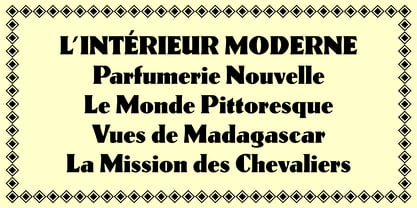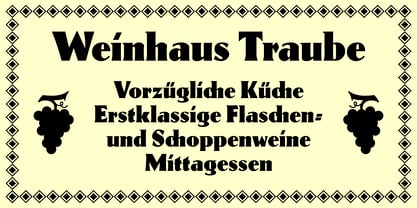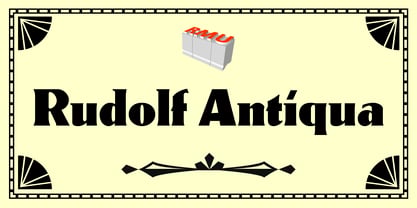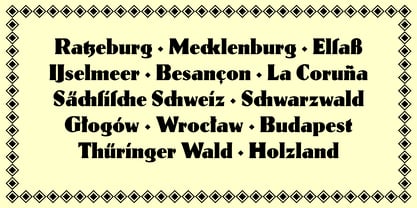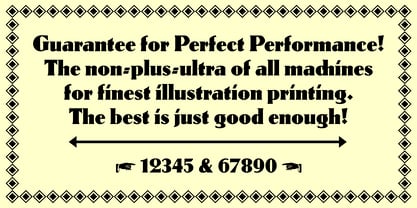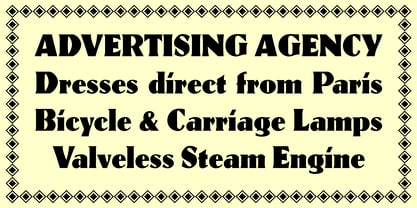
Rudolf Antiqua™
by RMU
The Rudolf Antiqua Font Family was designed by Rudolf Koch, Ralph M. Unger and published by RMU. Rudolf Antiqua contains 1 styles. More about this family
Rudolf Antiqua is a revival of Rudolf Koch's Fette Koch Antiqua. The font was carefully redrawn and redesigned for modern use. It comes with a long s, which can be accessed either by typing the integral sign [∫] or by using the OT feature Historical Forms to turn the round s into the long s. The font contains several discretionary ligatures. That's why it is recommended to activate this OT feature too.
Designers: Rudolf Koch, Ralph M. Unger
Foundry: RMU